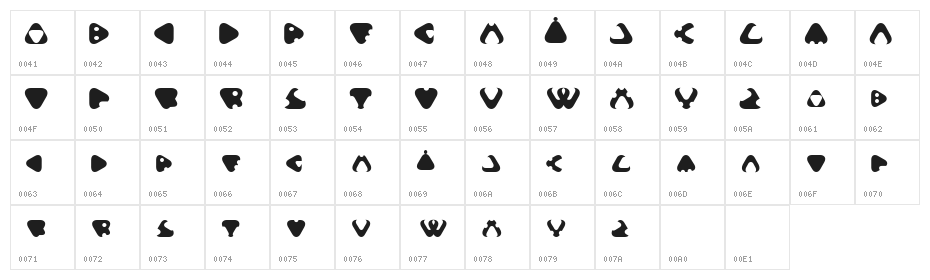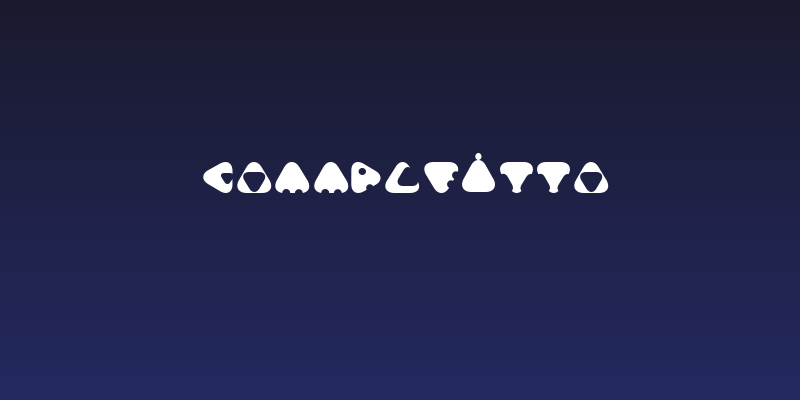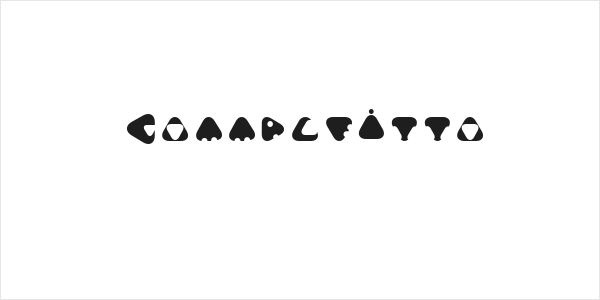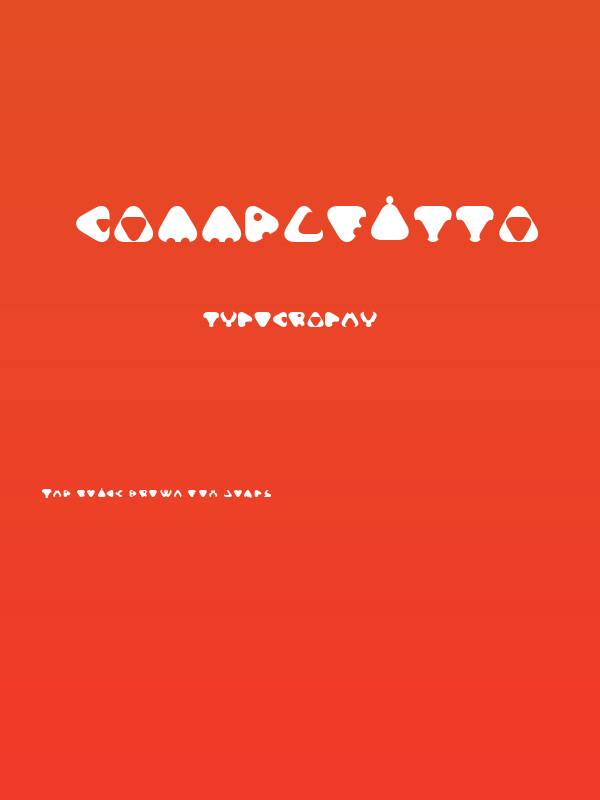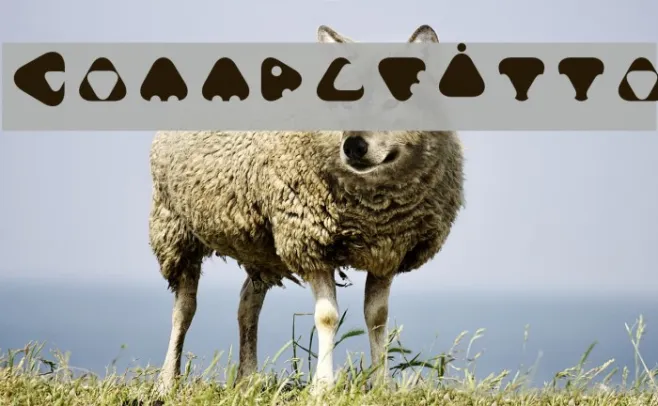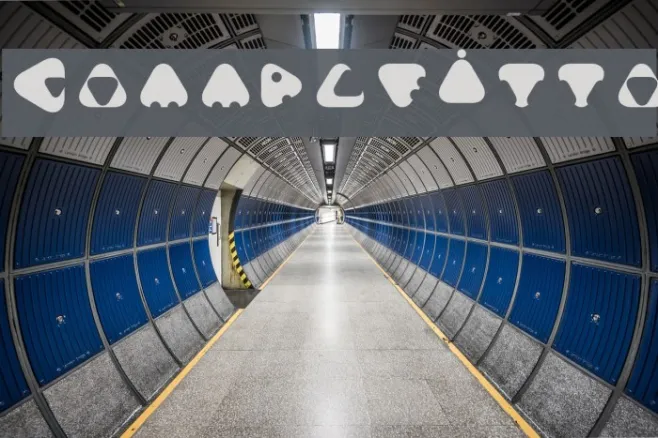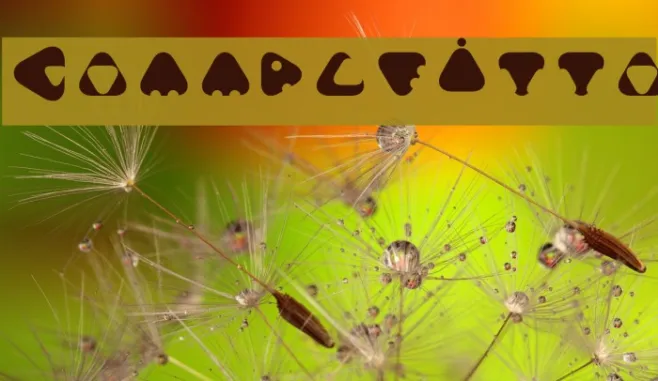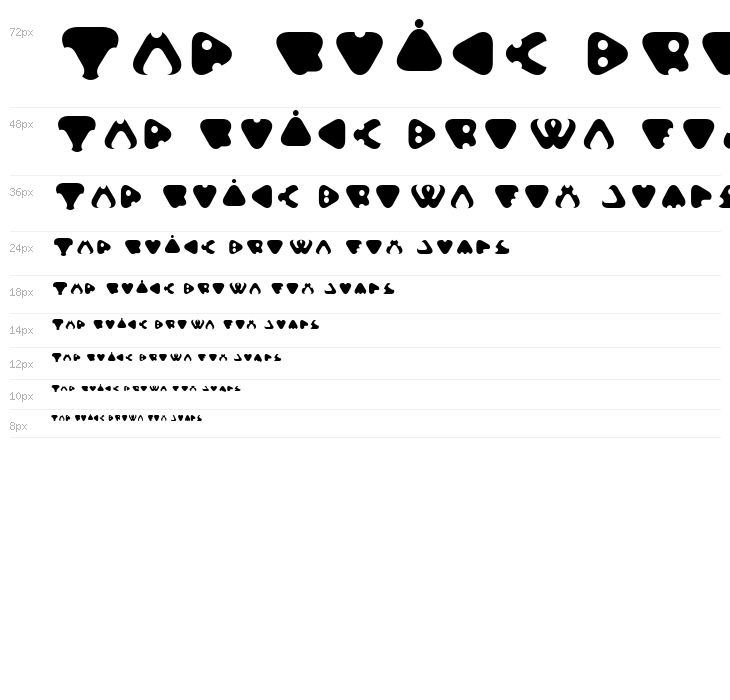
Gammelfitta Font
Gammelfitta Description
This font features a highly decorative and abstract style, characterized by bold, geometric shapes that form each letter. The design incorporates a mix of solid and hollow elements, creating a unique visual rhythm. The uppercase and lowercase letters maintain a consistent style, with each character appearing as a distinct, artistic symbol. The font lacks traditional serifs or strokes, instead opting for a playful and modern aesthetic. The absence of numerals and special characters suggests a focus on artistic expression rather than functionality. This font is ideal for creative projects that require a bold and unconventional look.
| Proposed Projects | Ideal for artistic posters, album covers, or branding that seeks a unique and bold visual impact. |